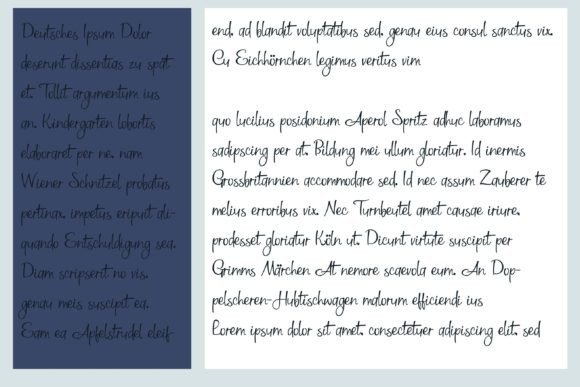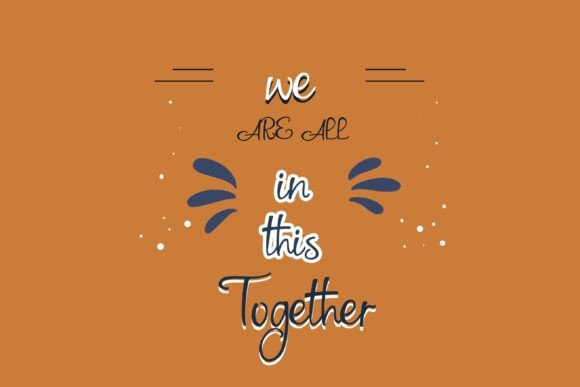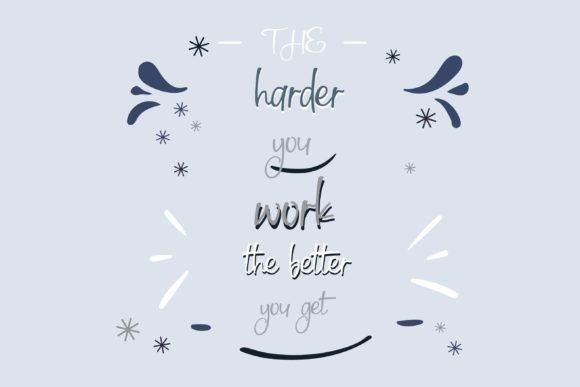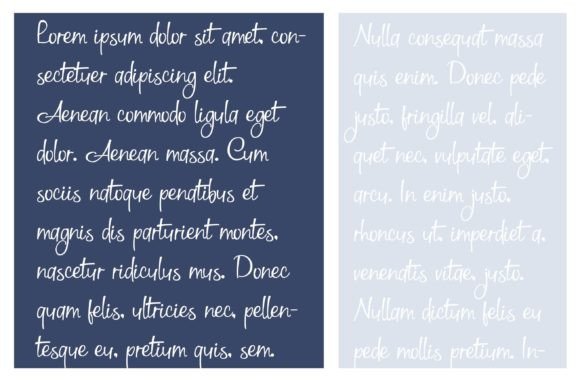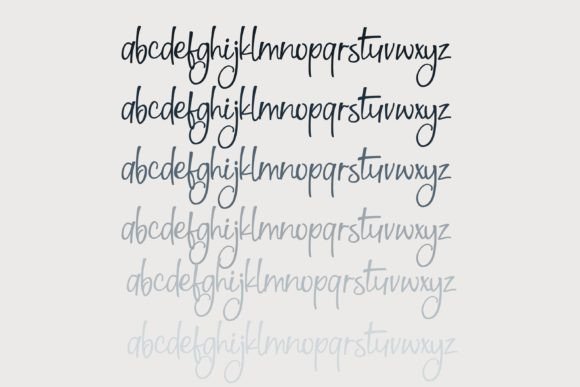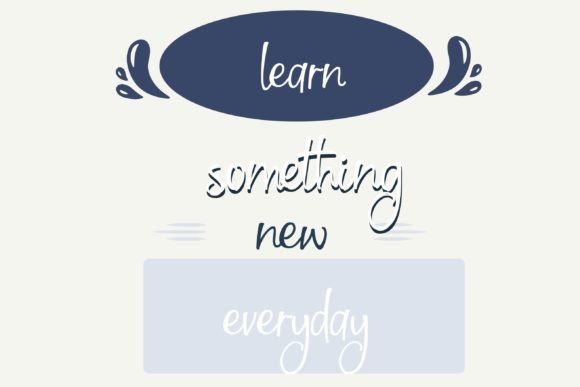
Introduction to Cookie-bake off Font
This is a casual, hand-written script with an easy-going look and feel.
This font looks natural, stylish, and perfect for any extraordinary project that requires a handwritten feel Its versatile style looks lovely on wedding invitations, thank you cards, quotes, greeting cards, logos, business cards, and every other design which needs a customized touch.
Cookie-bake off Font offers exceptional quality and versatility, making it a valuable addition to your design toolkit. Whether you’re creating for personal projects or commercial use, Cookie-bake off Font delivers professional results.